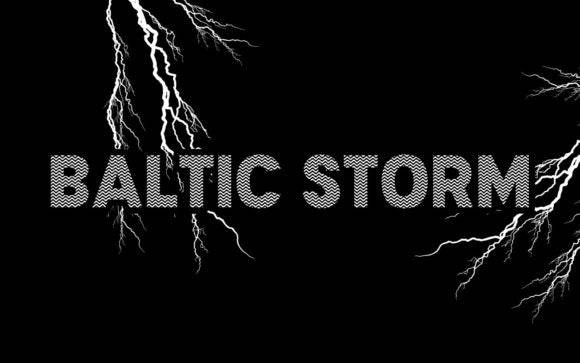
Baltic Storm Font for Cricut, Silhouette and Printable Designs
Baltic Storm Font is a powerful, eye-catching typeface tailored for digital crafting tools and printable design tasks. Built with smooth curves and strong character presence, it performs beautifully across home decor projects, apparel graphics, and event signage.
Crafted as a font entity, Baltic Storm ensures easy cutting compatibility and print clarity, making it a must-have for creators using Cricut, Silhouette, or similar DIY platforms. Its versatile design allows for seamless integration into various projects, from personalized gifts to home decor items. Baltic Storm stands out among basic fonts for cricut projects due to its unique style and ease of use, catering to both novice and experienced crafters alike. With its clean lines and bold aesthetic, it elevates any creation, making it a valuable addition to your font collection.
- Vinyl decals and heat transfer projects
- Printable signs and wall art
- Personalized mugs, bags, and t-shirts
- Event invitations and table decor
- Custom labels, tags, and packaging
- Crafting-optimized with clean cut paths
- Bold style for visual impact in all formats
- Perfect for digital downloads and printables
Q: What type of font is Baltic Storm?
A: Baltic Storm is a bold display font optimized for Cricut, Silhouette, and printable design projects. Its striking letters and unique character make it perfect for eye-catching signage and artistic interpretations. Additionally, Baltic Storm serves as a versatile barqish font for design projects, enhancing creativity across various applications. Whether you're crafting invitations or personalizing home decor, this font guarantees a captivating touch. Its adaptability makes it an excellent choice for a variety of themes and styles. Furthermore, it can easily be paired with other typefaces, allowing for unique and personalized creations. It’s even been recognized as a popular barbie font for crafting projects, appealing to those who enjoy whimsical and playful designs. Furthermore, Baltic Storm pairs beautifully with a batik classic font for design projects, creating a harmonious balance of modern flair and traditional elegance. This combination allows designers to explore innovative layouts while maintaining a timeless quality in their creations. Perfect for both professional and personal projects, the font's adaptability makes it an essential choice for anyone looking to elevate their design aesthetic.